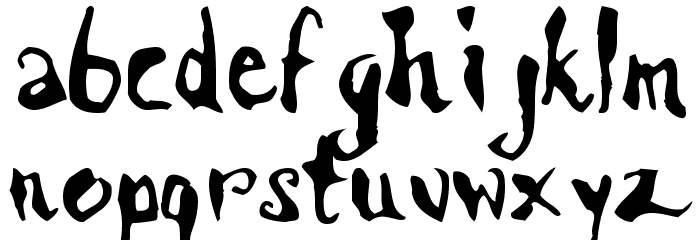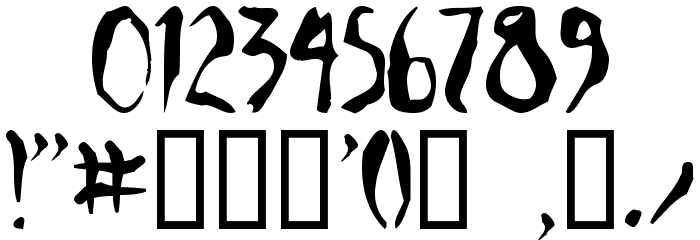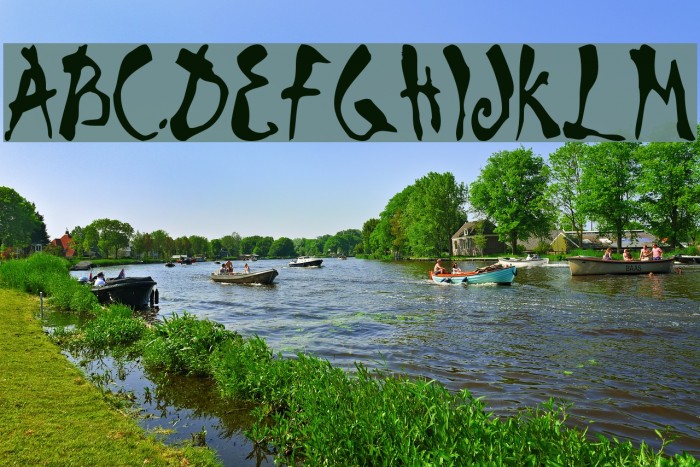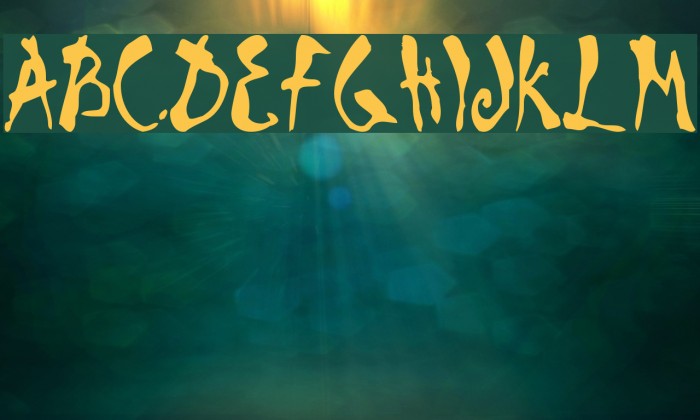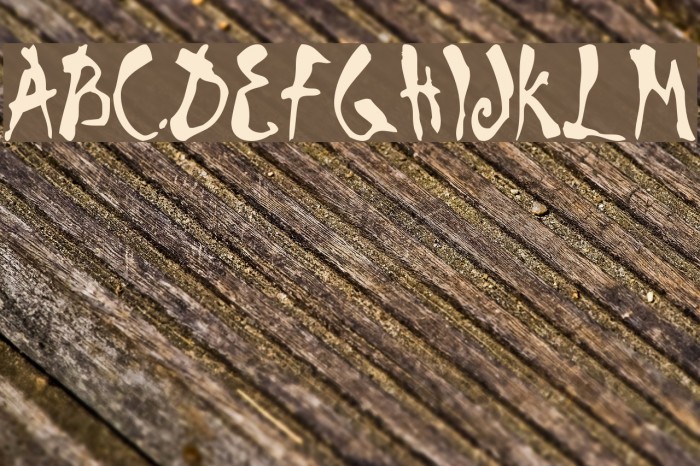
Scrawn Font
This font features an eclectic and whimsical design with irregular, hand-drawn strokes. The characters have a playful, almost chaotic appearance, with varying thickness and unique shapes that give each letter a distinct personality. The uppercase letters are bold and dynamic, while the lowercase letters maintain a quirky charm. Numbers and special characters follow the same artistic style, making the font suitable for creative and unconventional projects. The overall look is reminiscent of a doodle or artistic sketch, perfect for adding a touch of individuality and flair.
A whimsical, hand-drawn font with irregular strokes and playful character shapes.
- Proposed Projects: Ideal for artistic projects, children's books, creative posters, and unique branding.
- Use Case: Logos, Posters, Creative projects